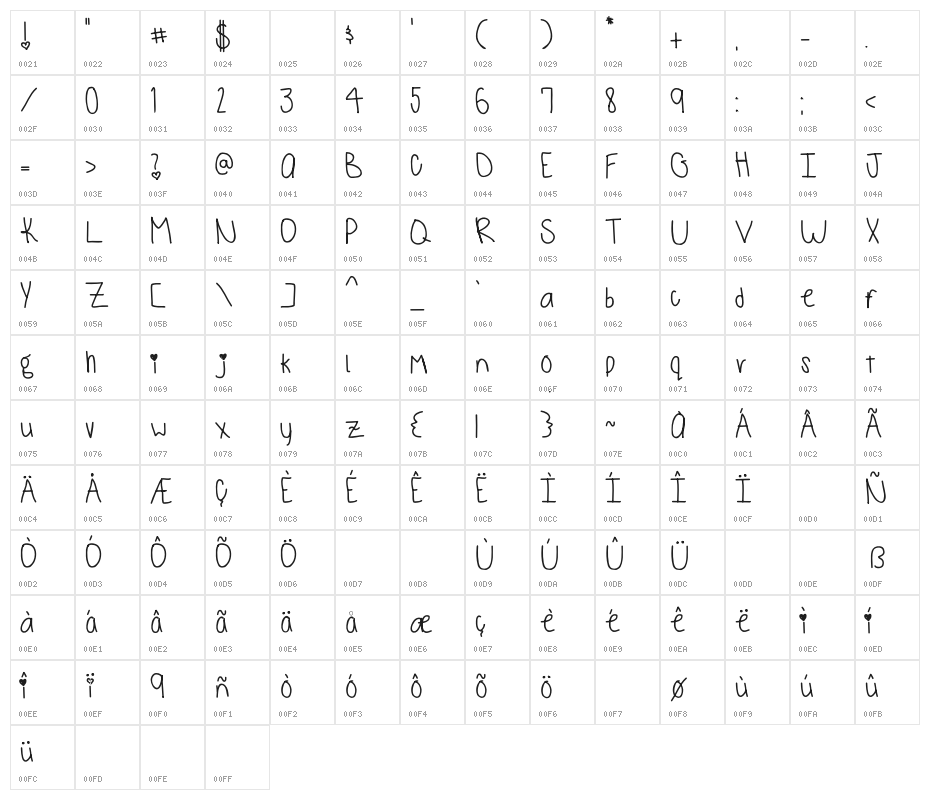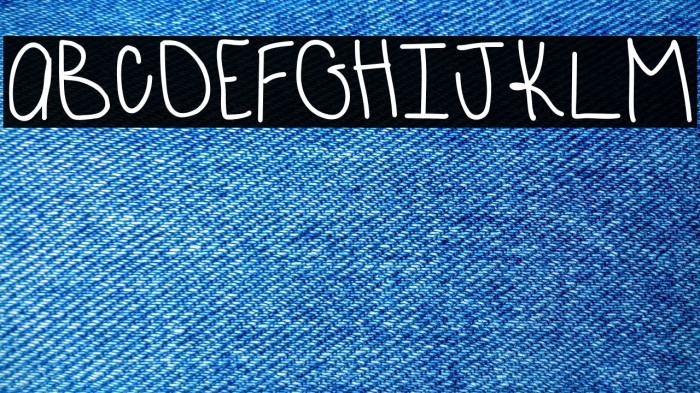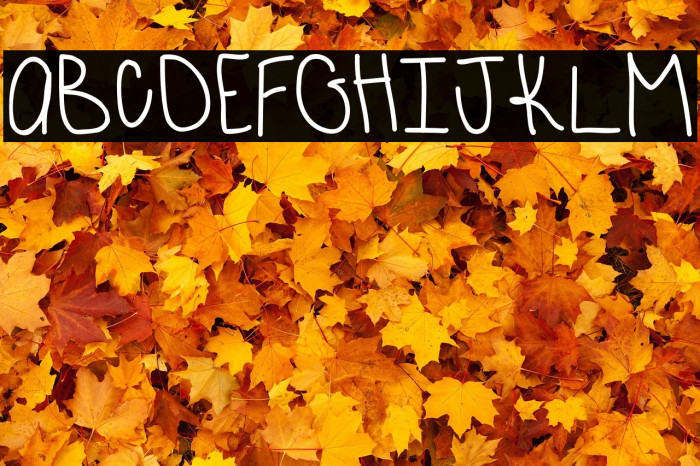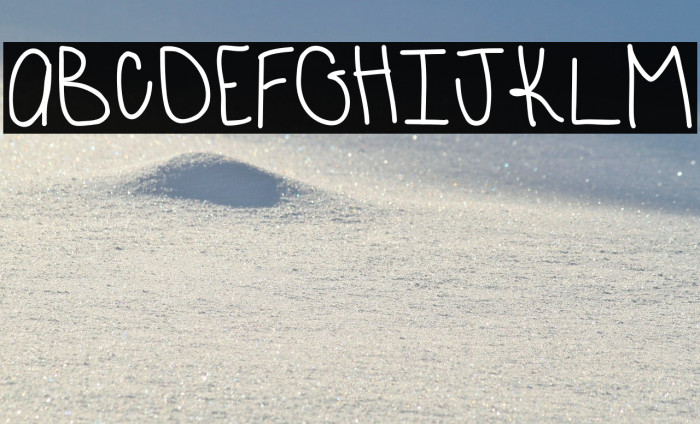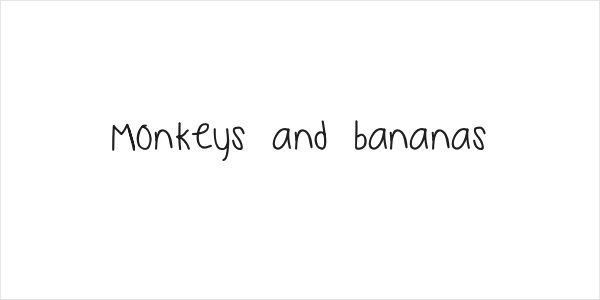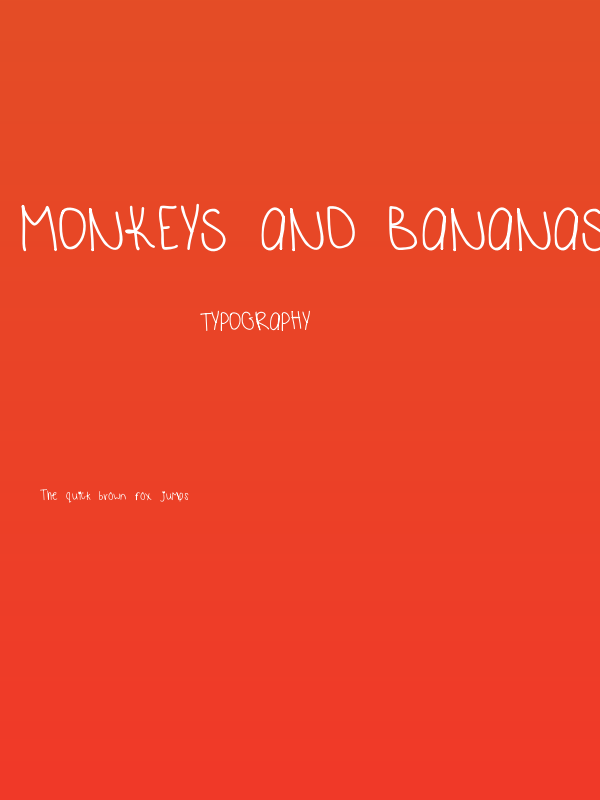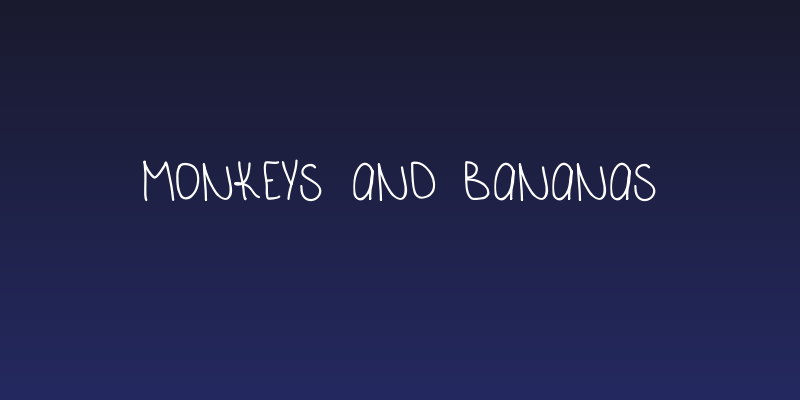
monkeys and bananas Font
monkeys and bananas Description
This playful and whimsical handwritten font features a casual and friendly style, characterized by its irregular strokes and charming imperfections. The letters are slightly tilted, adding a dynamic and lively feel. The uppercase and lowercase letters maintain a consistent flow, while the numbers and special characters complement the overall aesthetic. The font's unique personality is further enhanced by the inclusion of heart shapes in place of dots on the lowercase 'i' and 'j'. This font exudes a sense of fun and creativity, making it ideal for projects that require a personal and informal touch.
| Use Case | Logos, Headlines, Informal Text |
| Proposed Projects | Ideal for greeting cards, children's books, playful branding, and social media graphics. |